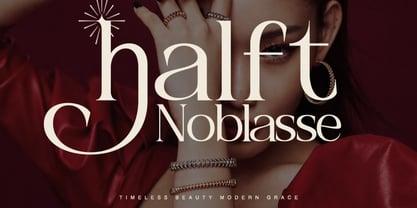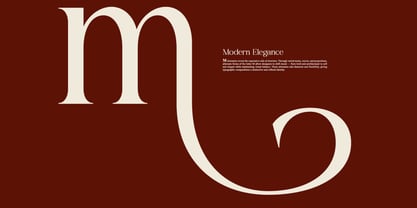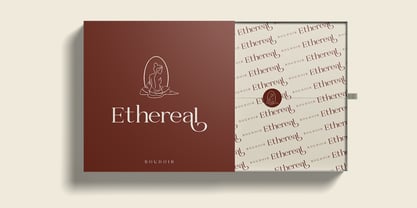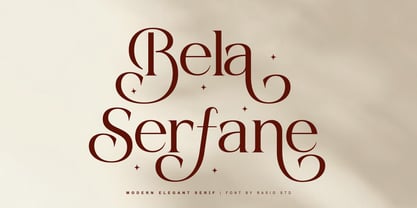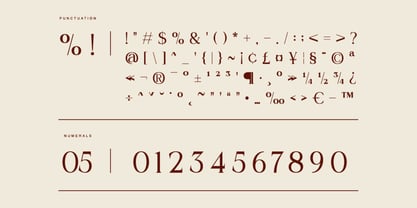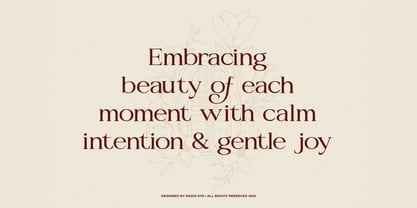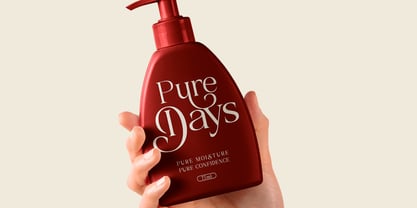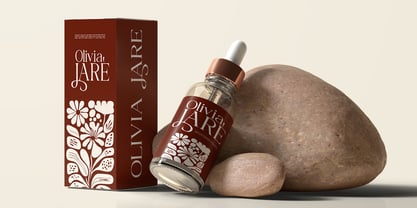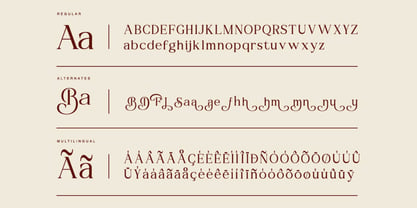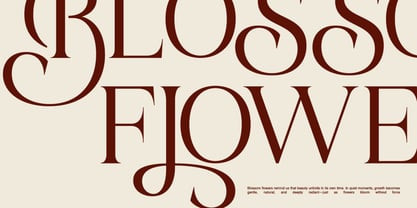
Bela Serfane
La familia tipográfica Bela Serfane fue diseñada por Fajar Indra y publicada por Rasio Studio. Bela Serfane contiene 1 estilos. Más información sobre esta familia
Bela Serfane is a modern elegant serif font that blends refined sophistication with a bold, expressive twist. Featuring a stylish set of upper and lowercase characters, Bela Serfane also includes unique alternates and ligatures with luxurious ornamental curves that elevate any design. This font is ideal for branding, high-end editorial layouts, fashion magazines, packaging, and wedding invitations. Bela Serfane is perfect for projects that require a balance of elegance and bold expression. Ideal for high-end branding, fashion editorials, wedding stationery, product packaging, and luxury goods, it delivers both beauty and versatility.